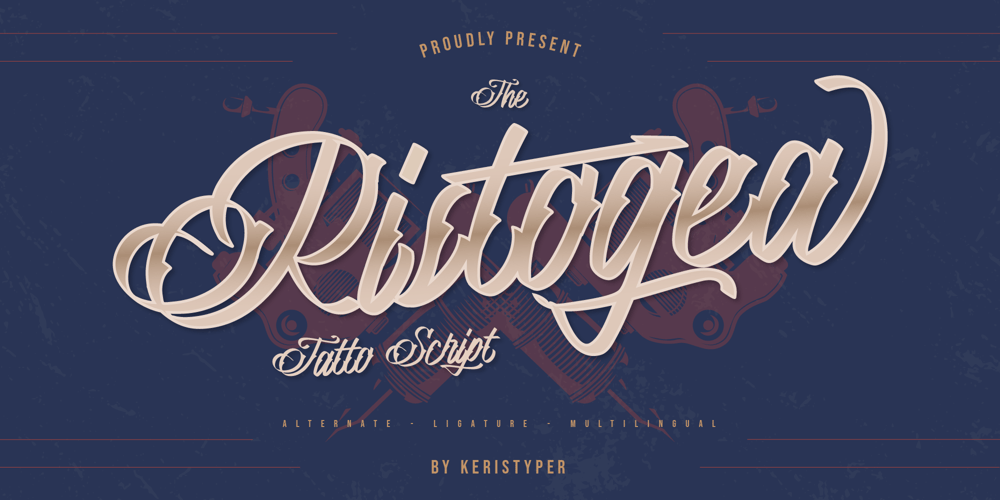
Ristogea
Ristogea font
Ristogea Font Family was designed by Tezar Tantular and published by Keristyper Studio. Ristogea contains 1 styles and family package options. Proudly present Ristogea, a script font inspired by tattoo lettering with a swirl curvy. This font is good for logo design, Social media, Movie Titles, Books Titles, short text even long text letters, and good for your secondary text font with the script, sans, or serif.Featured: Standard Uppercase & Lowercase Numeral & Punctuation Multilingual : ä ö ü Ä Ö Ü ß ¿ ¡ Alternate & Ligature PUA encoded We recommend programs that support the OpenType feature and the Glyphs panel such as Adobe applications or Corel Draw. so you can use all the variations of the glyphs.Hope you enjoy our fonts!